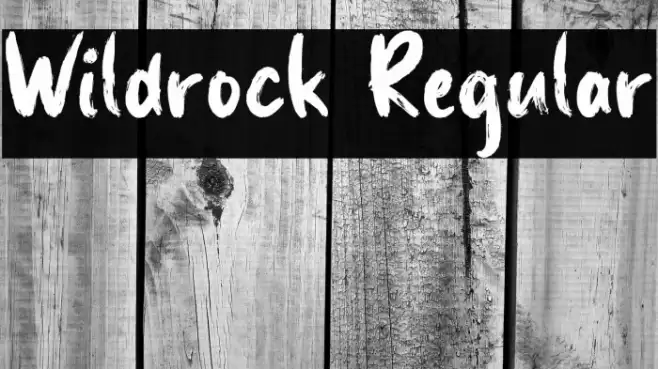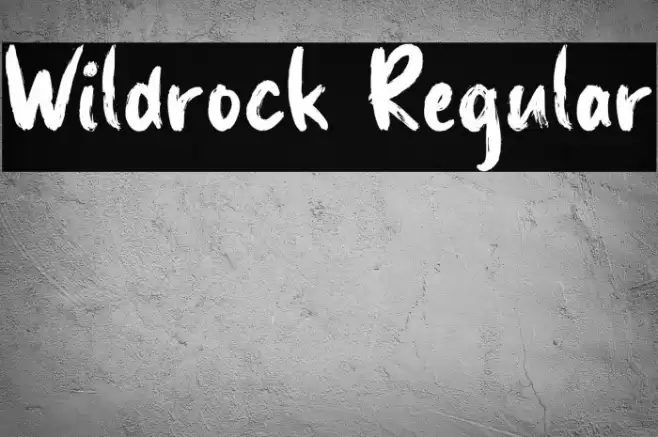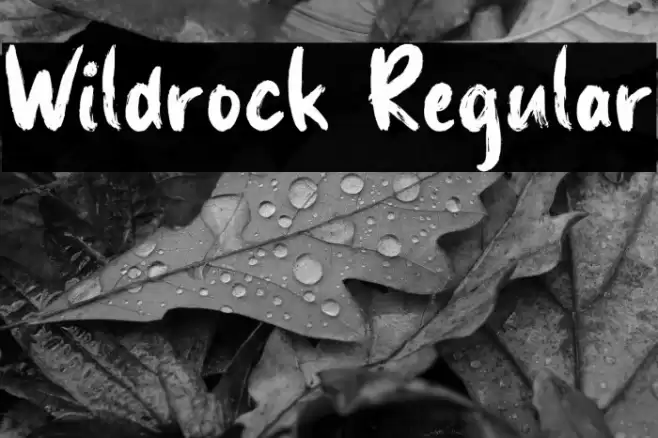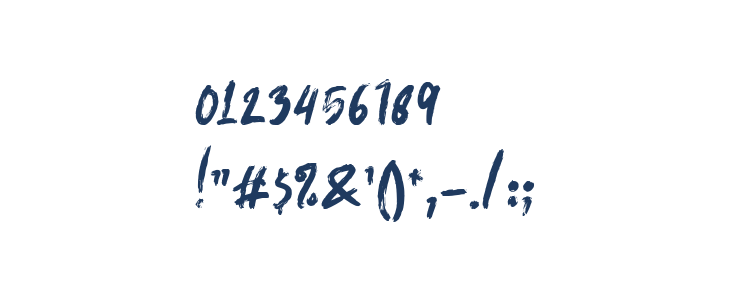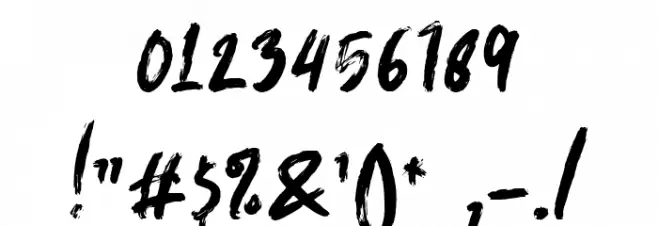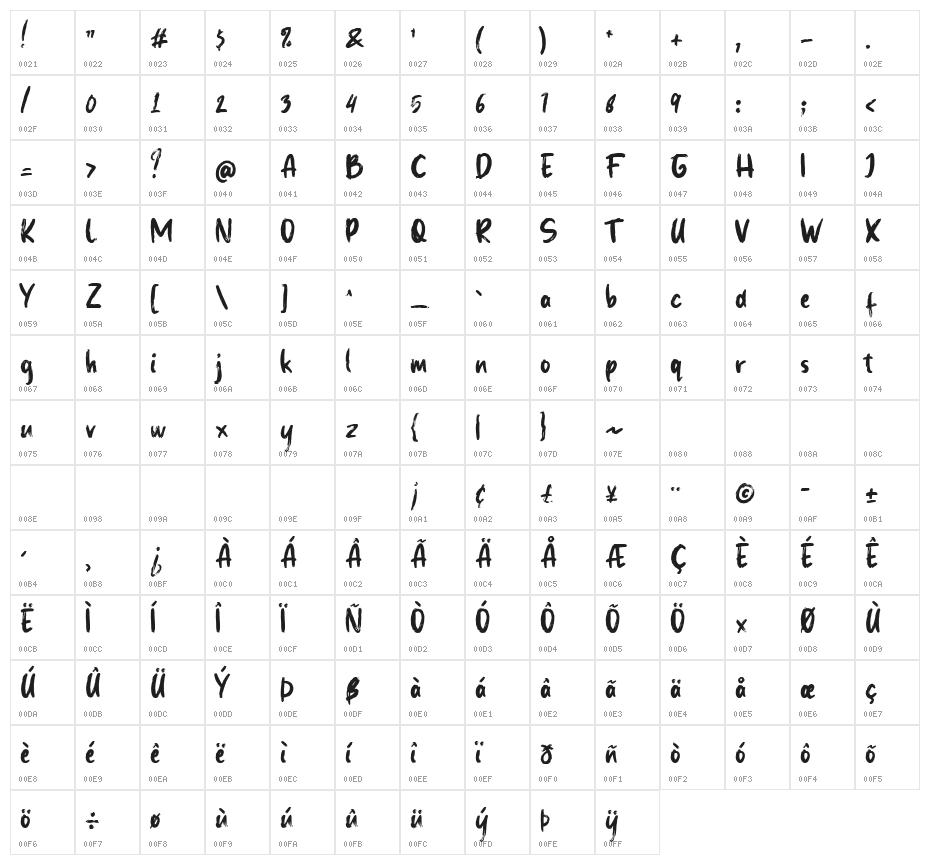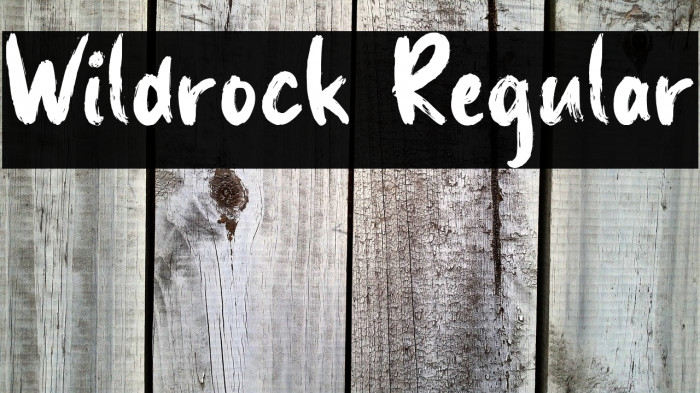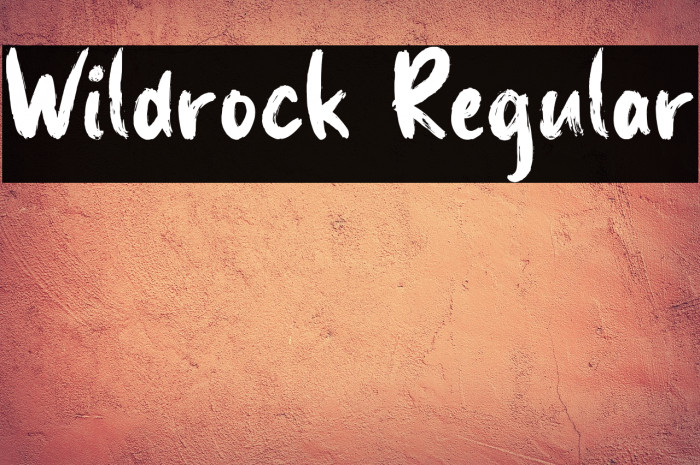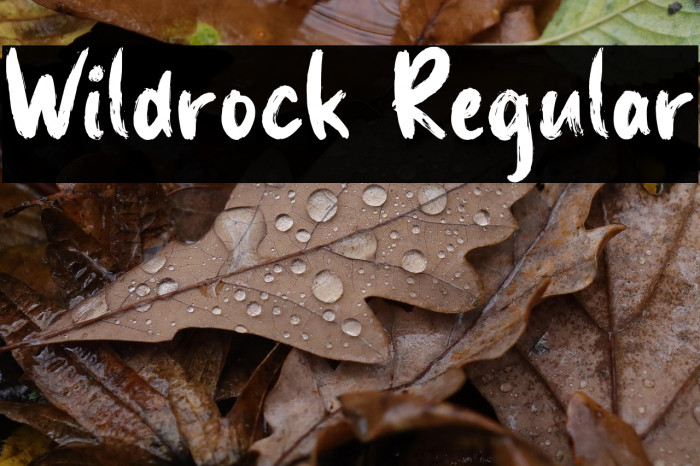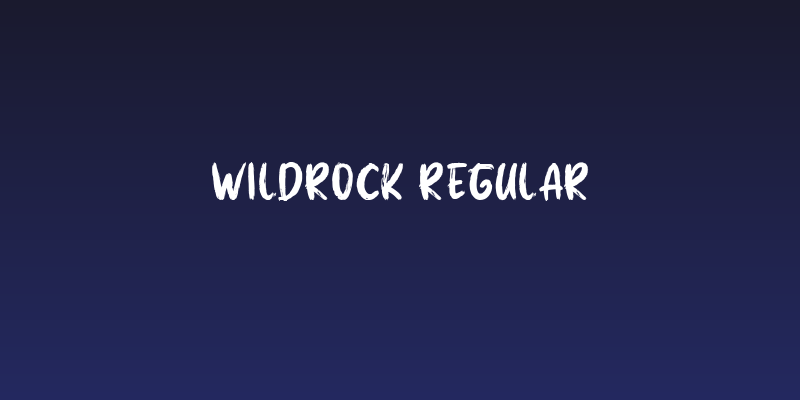
Wildrock Regular Font
Wildrock Regular Description
This font exudes a bold and energetic style, characterized by its brush-like strokes that give it a dynamic and artistic appearance. The letters are crafted with a sense of movement, as if painted with a swift hand, creating a lively and expressive look. The uppercase and lowercase letters maintain a consistent style, with varying stroke thickness that adds to its handcrafted feel. The numbers and special characters follow the same aesthetic, ensuring a cohesive design throughout. This font is perfect for projects that require a touch of creativity and flair.
A bold, brush-style font with dynamic, artistic strokes from Regular fonts.
- Proposed Projects: Ideal for posters, branding, album covers, and creative advertising.
- Overall Style: Modern, Artistic